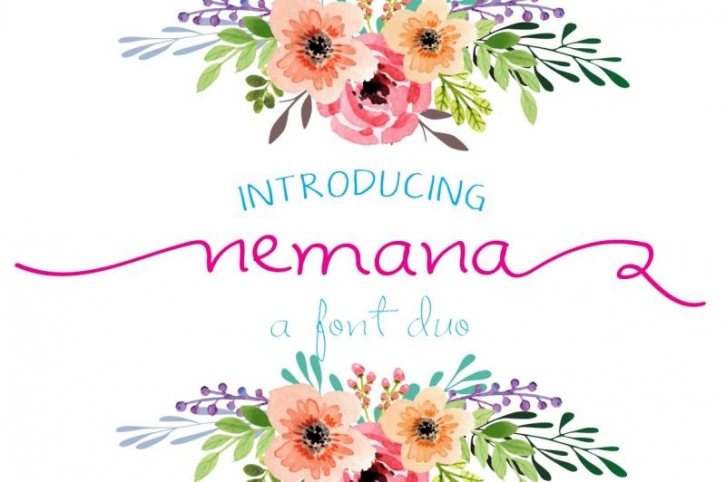
Nemana is a modern script font, every single letters have been carefully crafted to make your text looks beautiful. With modern script style this font will perfect for many different project ex: quotes, blog header, poster, wedding, branding, logo, fashion, apparel, letter, invitation, stationery, etc. Also the font contains lots of alternates to make your project look beautiful. The lower case font is on the thinner side. You can always add stroke in your software to make it look bolder. It also includes Sans serif Upper case letters, punctuation and numbers.